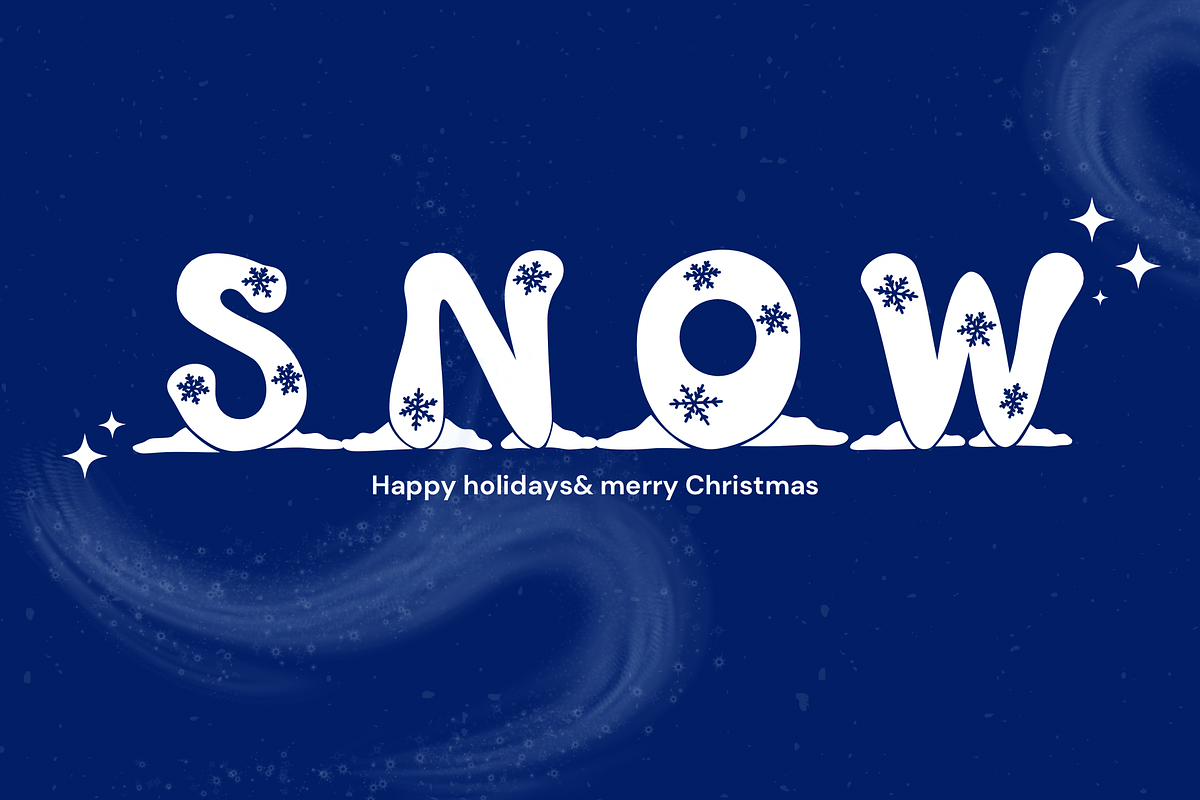
The Snow Font Free Download is a playful and festive typeface designed to bring the magic of winter to your designs. With its snowy, frosty letterforms, this font is perfect for creating holiday-themed branding, Christmas cards, event invitations, and seasonal posters. Whether you're designing for a winter wonderland event, a festive campaign, or a cozy holiday gathering, Snow Font adds a fun and wintery touch to your work.
Snow Font Free Download is ideal for designers looking to create holiday-themed designs that stand out. Perfect for seasonal promotions, festive invitations, or holiday marketing, this font will bring the warmth and joy of winter into your projects. Download it today and add a frosty, cheerful style to your creative work!